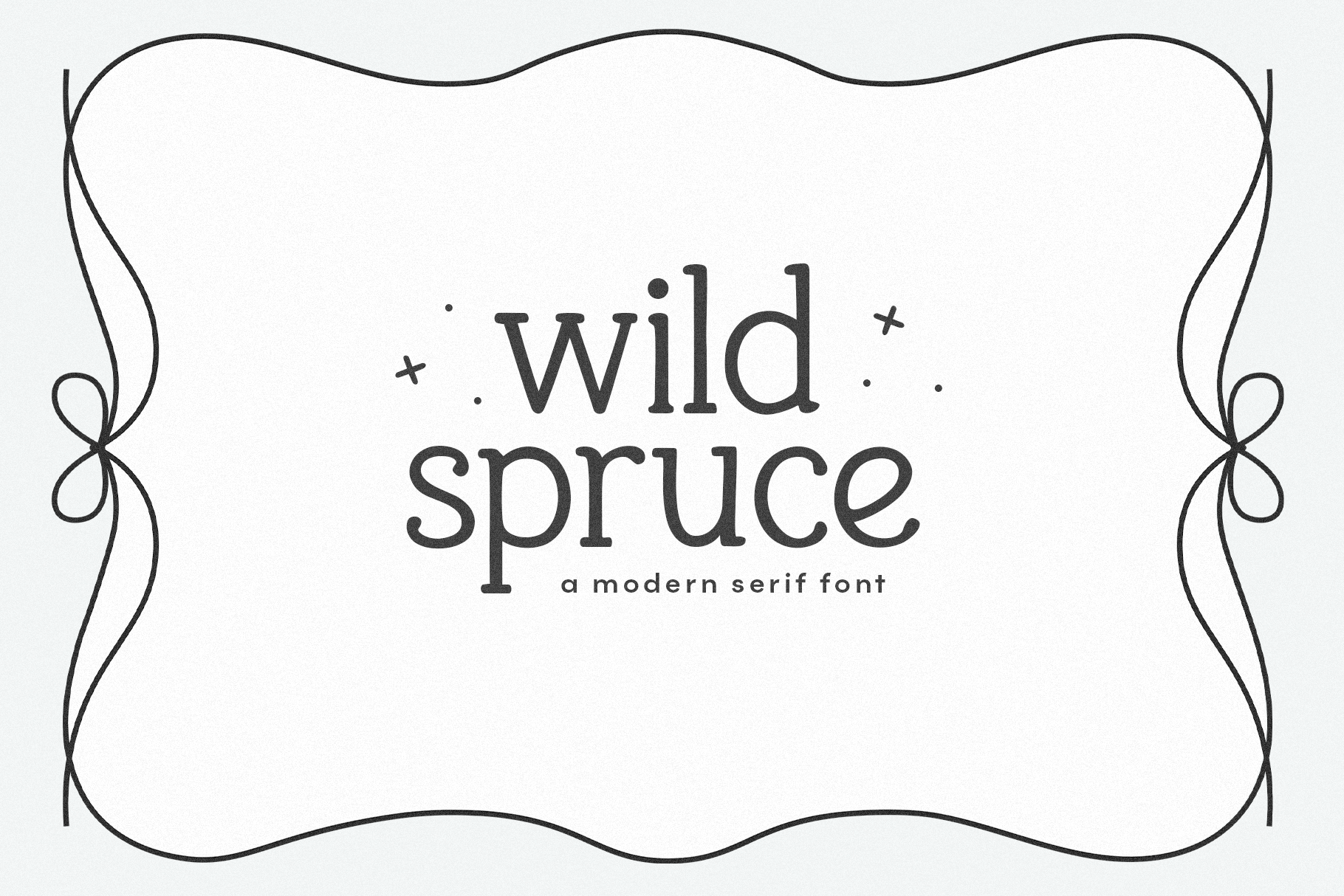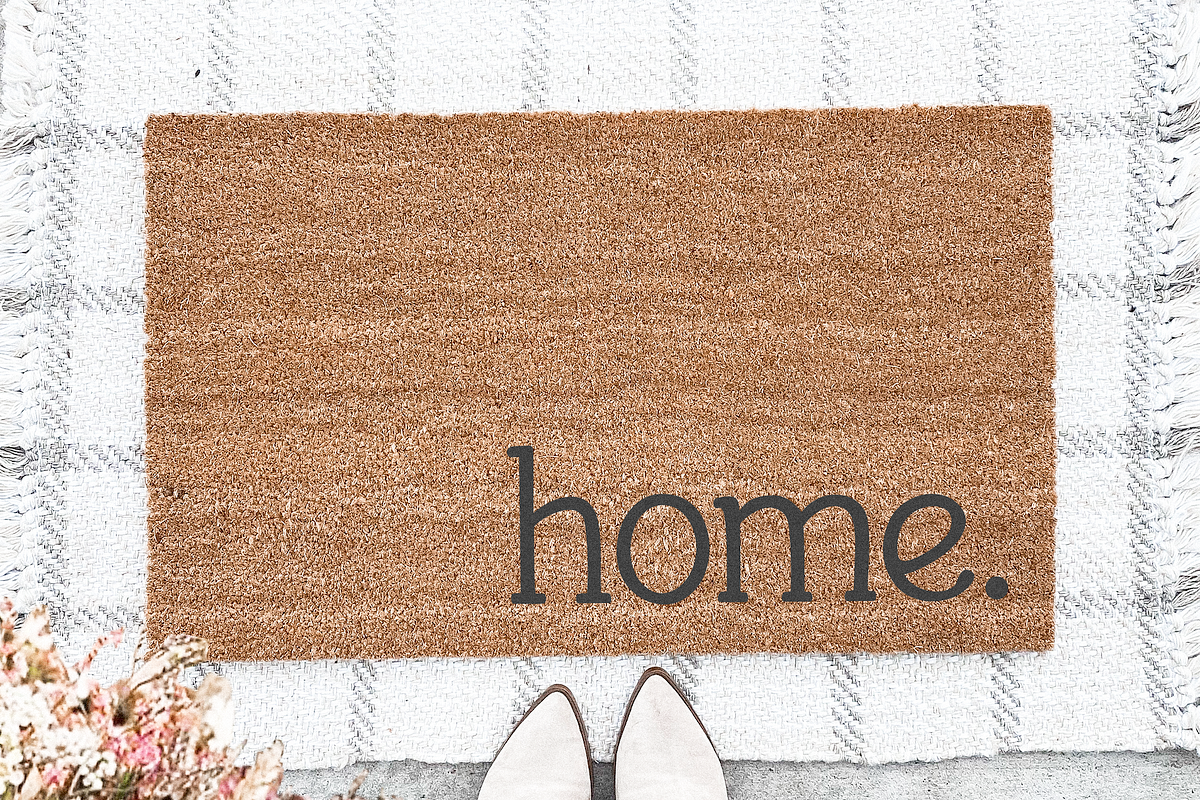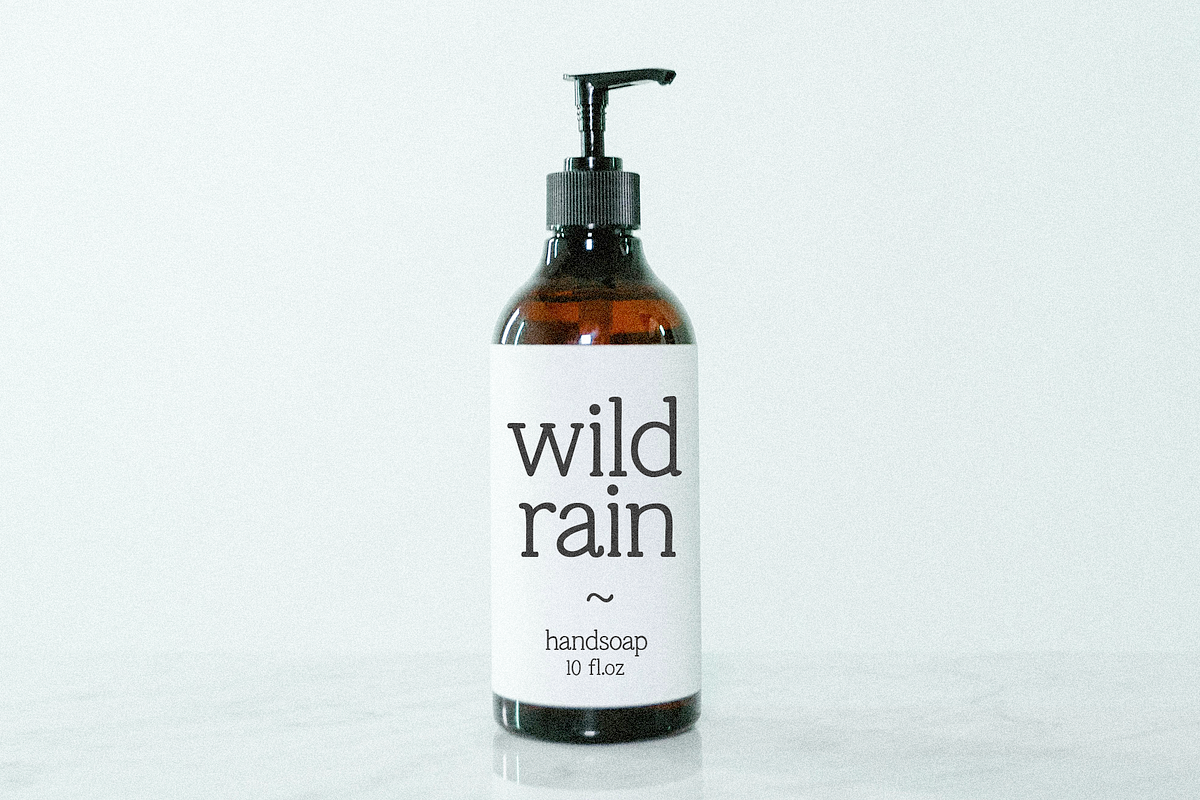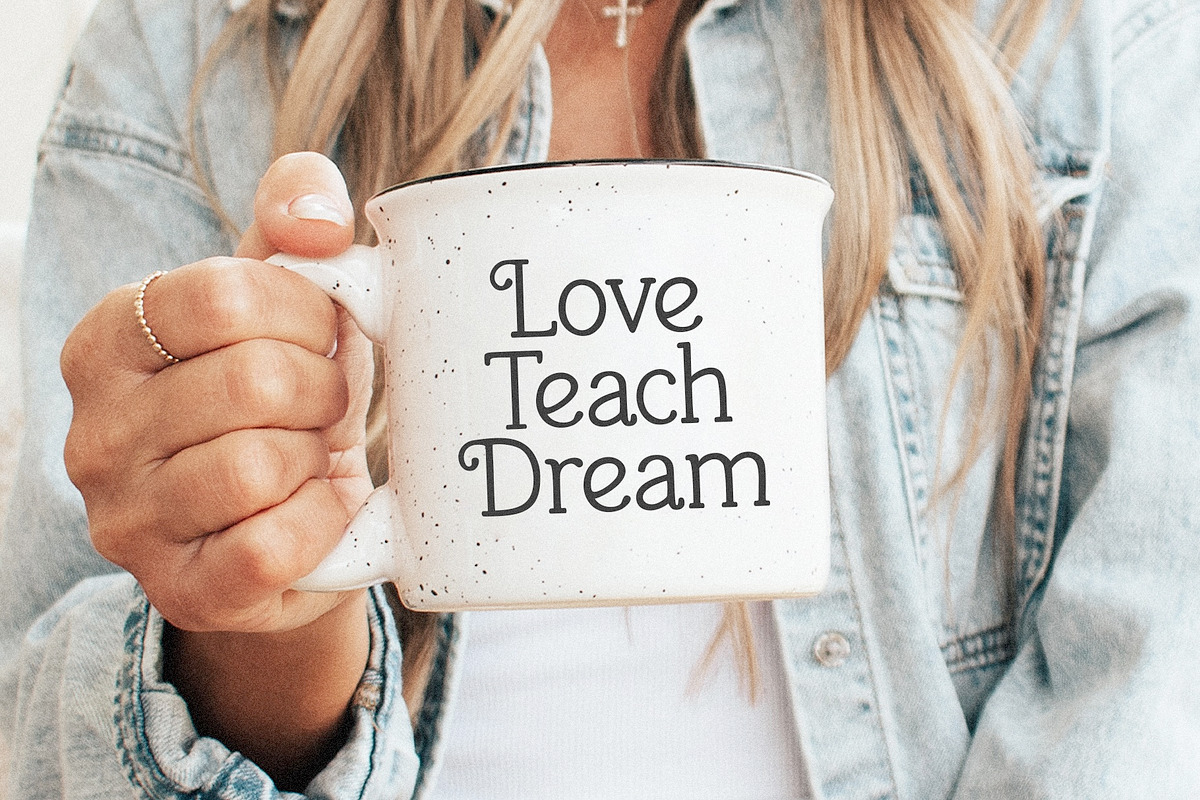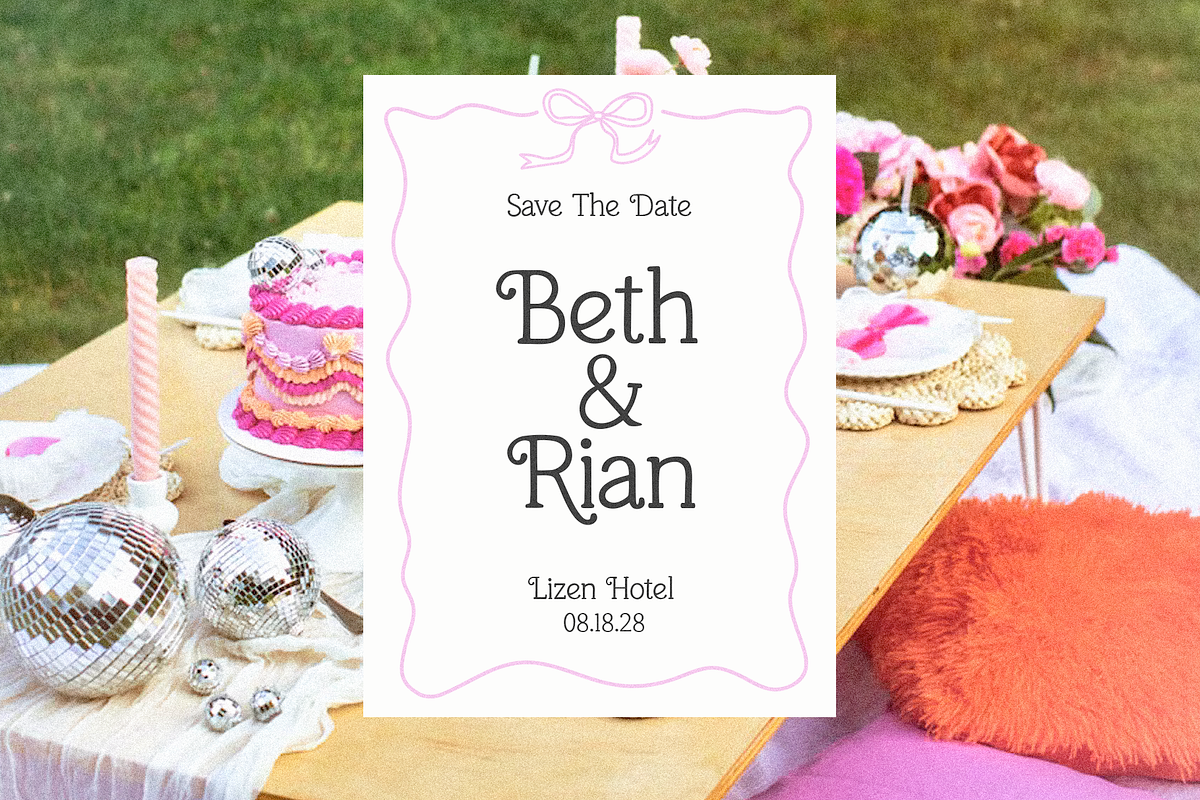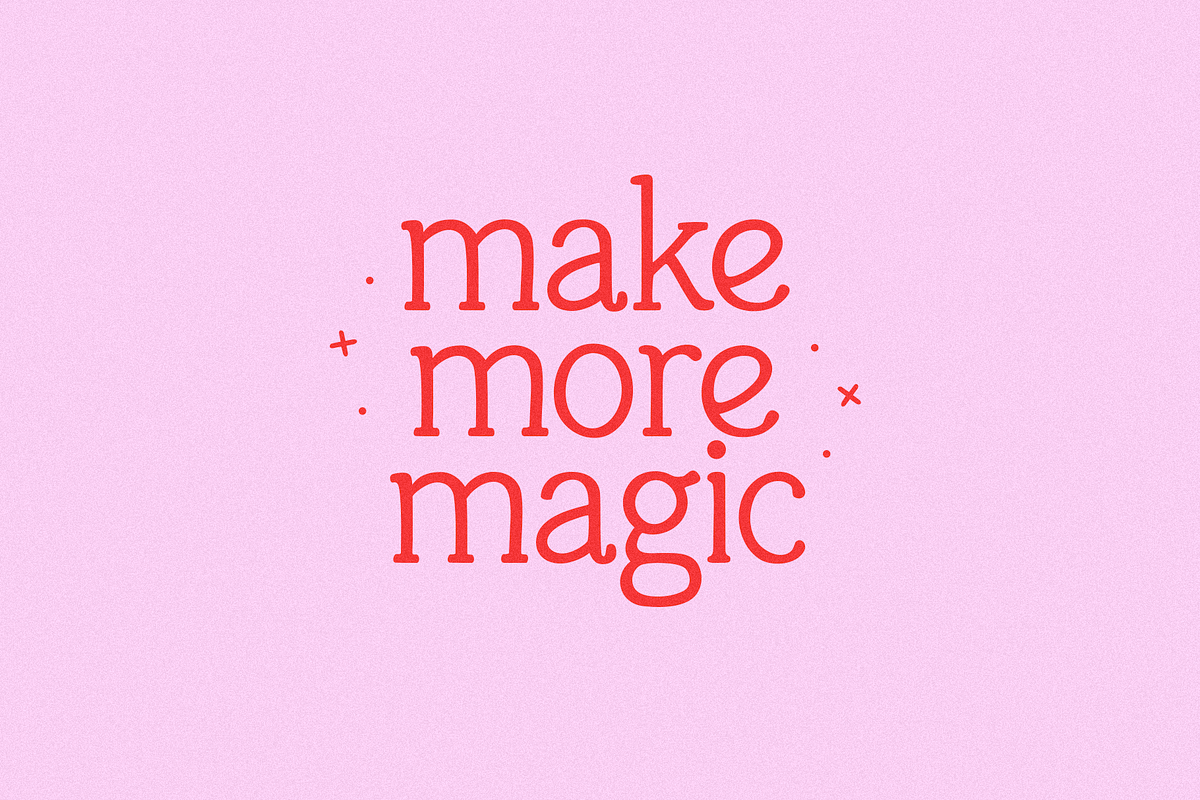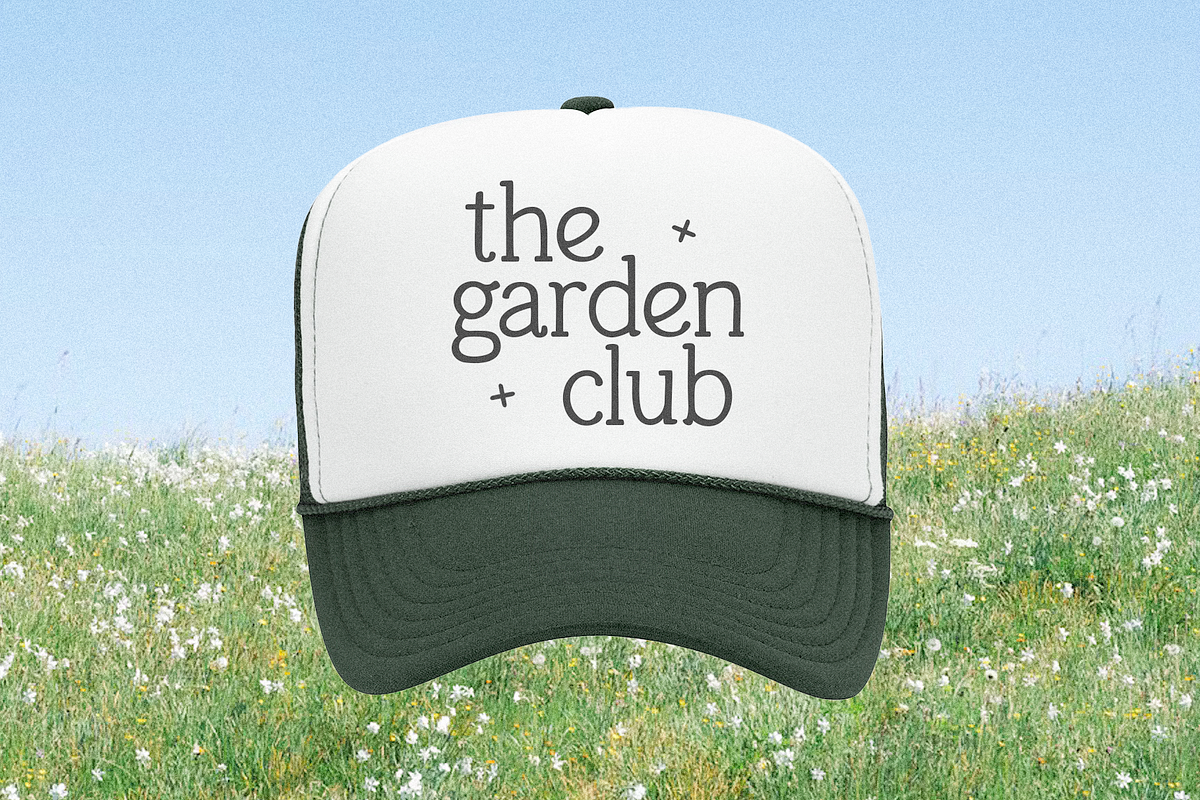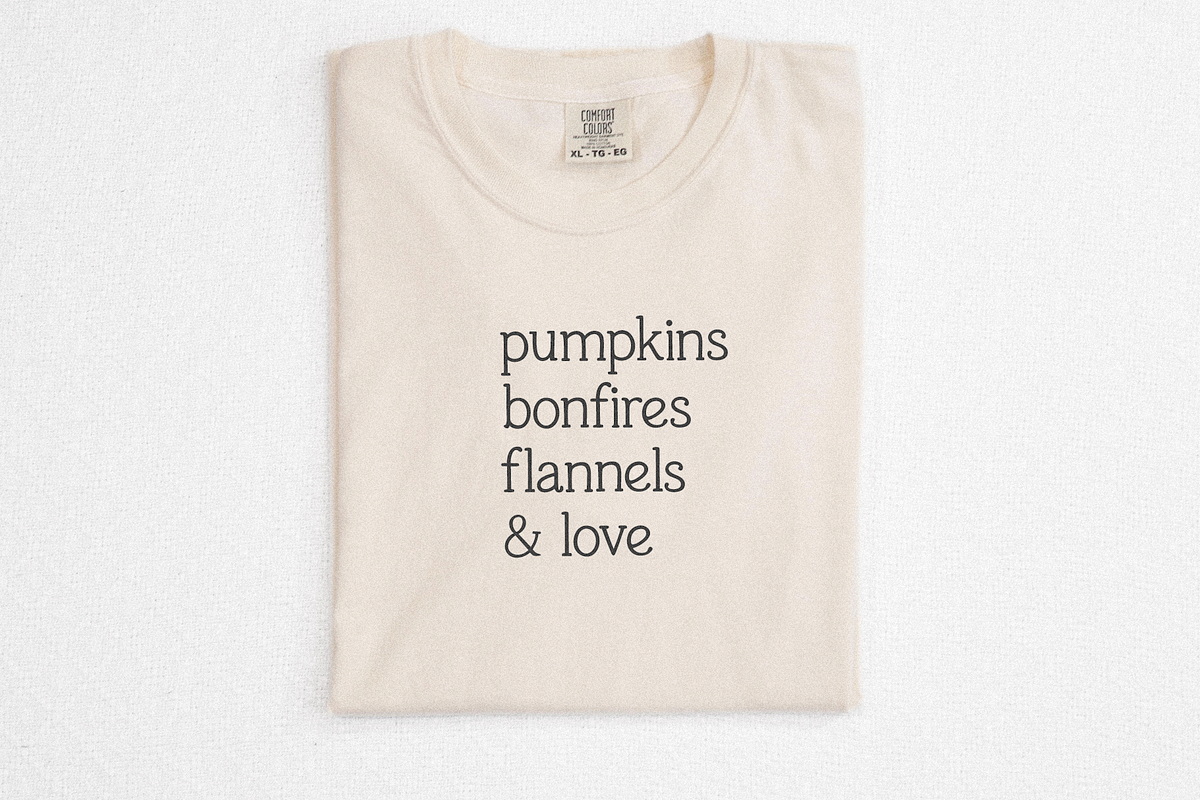
Wild Spruce | Modern Serif Font
Wild Spruce is a modern handwritten serif font.
This font is perfect for logos, farmhouse designs, cricut projects, canva, wedding decor, invitations and more!